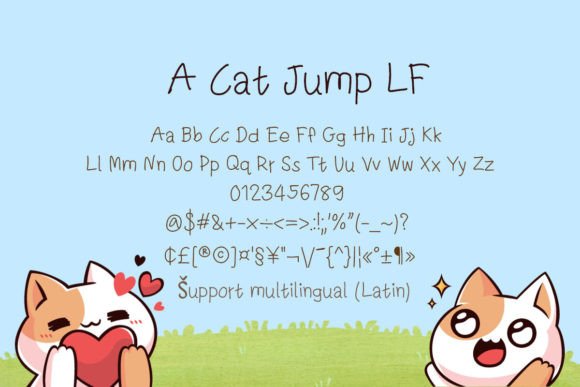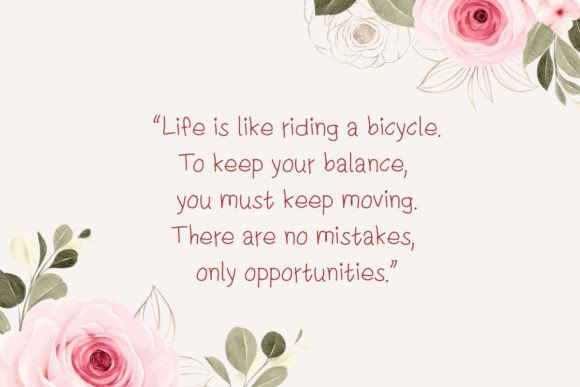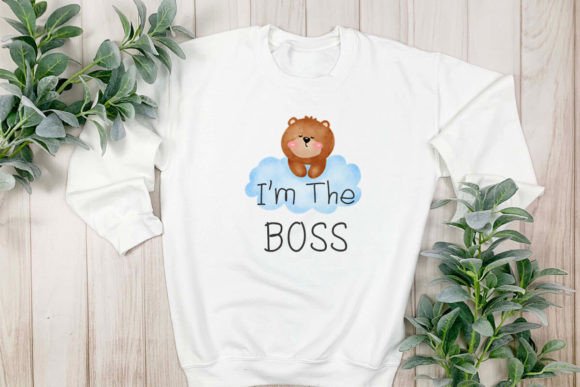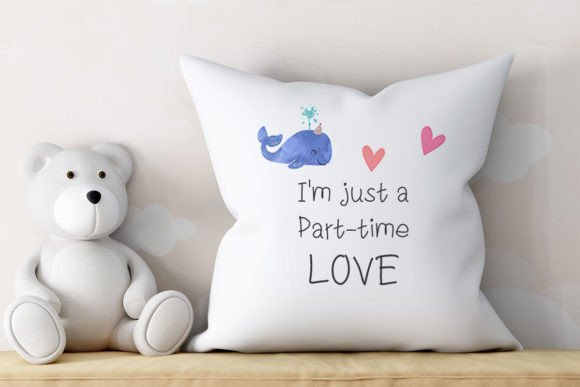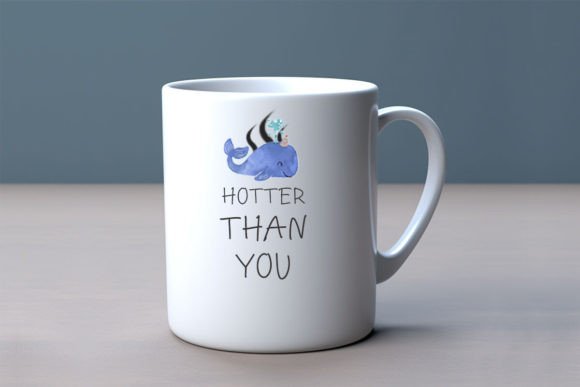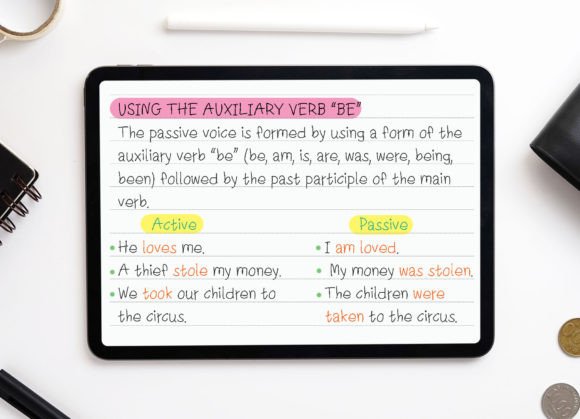
A Cat Jump LF Font: The Purrfect Choice for Your Fun and Creative Projects
Are you looking for a font that can add a touch of playfulness and whimsy to your designs? Look no further than A Cat Jump LF, a cute and charming sans serif font that’s perfect for a variety of projects. In this article, we’ll explore the features and benefits of A Cat Jump LF, and show you how it can elevate your designs to the next level.
What is A Cat Jump LF?
A Cat Jump LF is a sans serif font that’s designed to evoke a sense of fun and playfulness. Its clean and simple lines make it easy to read, while its adorable and quirky style adds a touch of personality to any design. Whether you’re working on a children’s book, a wedding invitation, or a t-shirt design, A Cat Jump LF is the perfect choice.
Features of A Cat Jump LF
- Cute and Playful: A Cat Jump LF is a font that’s designed to bring a smile to your face. Its playful and whimsical style makes it perfect for projects that require a touch of fun and personality.
- Good Mood: The font’s clean and simple lines make it easy to read, while its friendly and approachable style creates a good mood and atmosphere.
- Sans Serif: A Cat Jump LF is a sans serif font, which means it’s perfect for digital and print designs. Its clean lines and simple shapes make it easy to read, even at small sizes.
- Versatile: A Cat Jump LF is a versatile font that can be used for a wide range of projects, from children’s designs to wedding invitations and more.
Uses for A Cat Jump LF
A Cat Jump LF is a font that’s perfect for a variety of projects, including:
- Fun Projects: A Cat Jump LF is perfect for fun and creative projects, such as children’s books, activity sheets, and more.
- Diary Planners: Add a touch of personality to your diary planner with A Cat Jump LF, a font that’s both fun and functional.
- Wedding Invitations: A Cat Jump LF is a great choice for wedding invitations, adding a touch of whimsy and playfulness to your special day.
- Thank You Cards: Express your gratitude with style using A Cat Jump LF, a font that’s perfect for thank you cards and other correspondence.
- Quotes and Greeting Cards: A Cat Jump LF is a great choice for quotes and greeting cards, adding a touch of personality and whimsy to your message.
- Logos and Posters: Use A Cat Jump LF to create eye-catching logos and posters that are sure to grab attention.
- Children-Themed Designs: A Cat Jump LF is perfect for children’s designs, including activity sheets, coloring books, and more.
- Blogs and Social Media: Add a touch of personality to your blog or social media posts with A Cat Jump LF, a font that’s both fun and easy to read.
- Bags and T-Shirts: Use A Cat Jump LF to create custom bags and t-shirts that are sure to stand out.
- Clothing and Accessories: A Cat Jump LF is a great choice for clothing and accessories, adding a touch of whimsy and personality to your designs.
Why Choose A Cat Jump LF?
There are many reasons to choose A Cat Jump LF for your next project. Here are just a few:
- Unique and Quirky: A Cat Jump LF is a font that’s truly one-of-a-kind. Its quirky and playful style sets it apart from other fonts, making it perfect for designers who want to add a touch of personality to their work.
- Easy to Read: Despite its playful style, A Cat Jump LF is easy to read, even at small sizes. This makes it perfect for digital and print designs.
- Versatile: A Cat Jump LF is a versatile font that can be used for a wide range of projects. Whether you’re working on a children’s book or a wedding invitation, this font is sure to fit the bill.
| Font Name | A Cat Jump Lf Font |